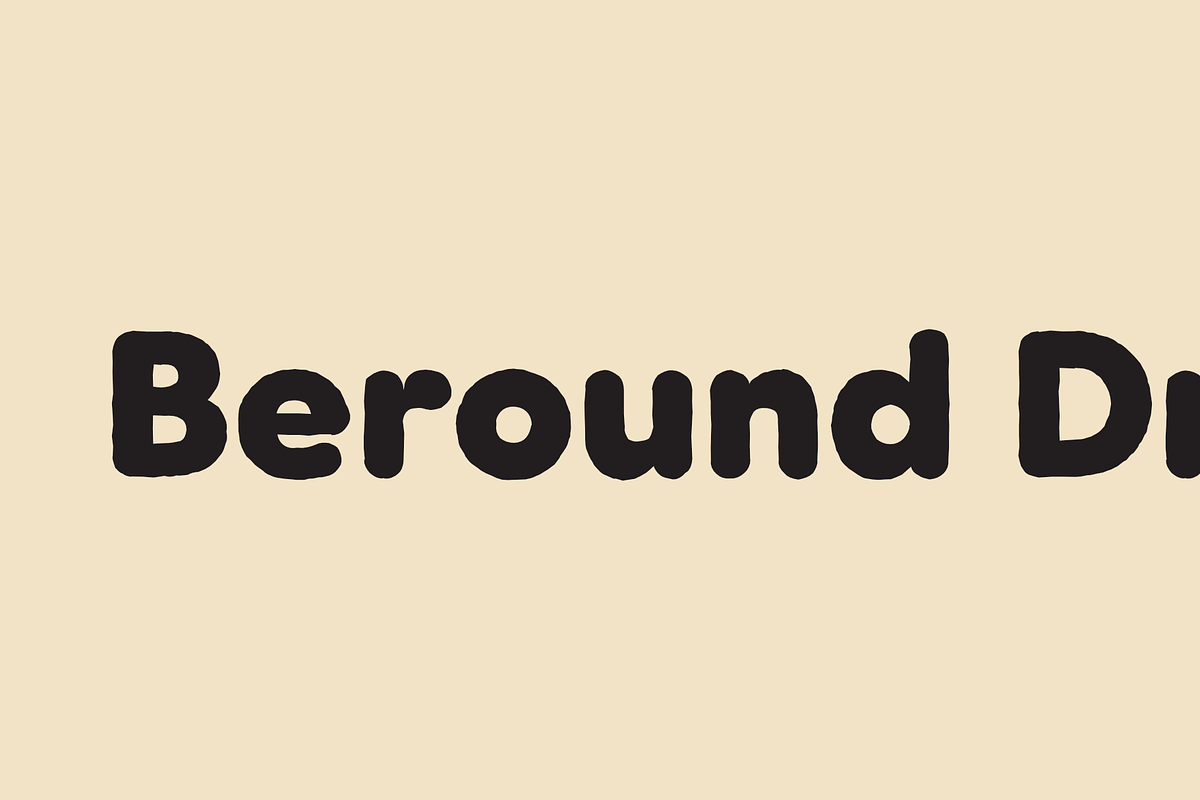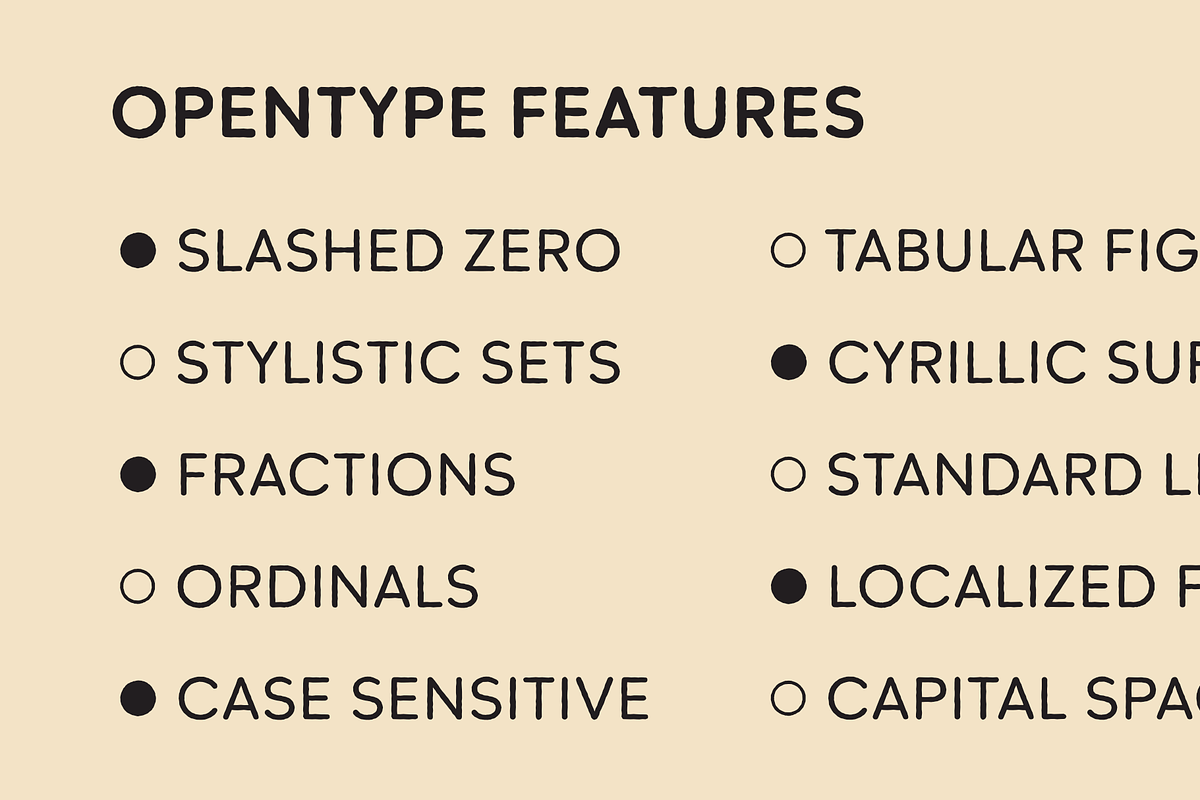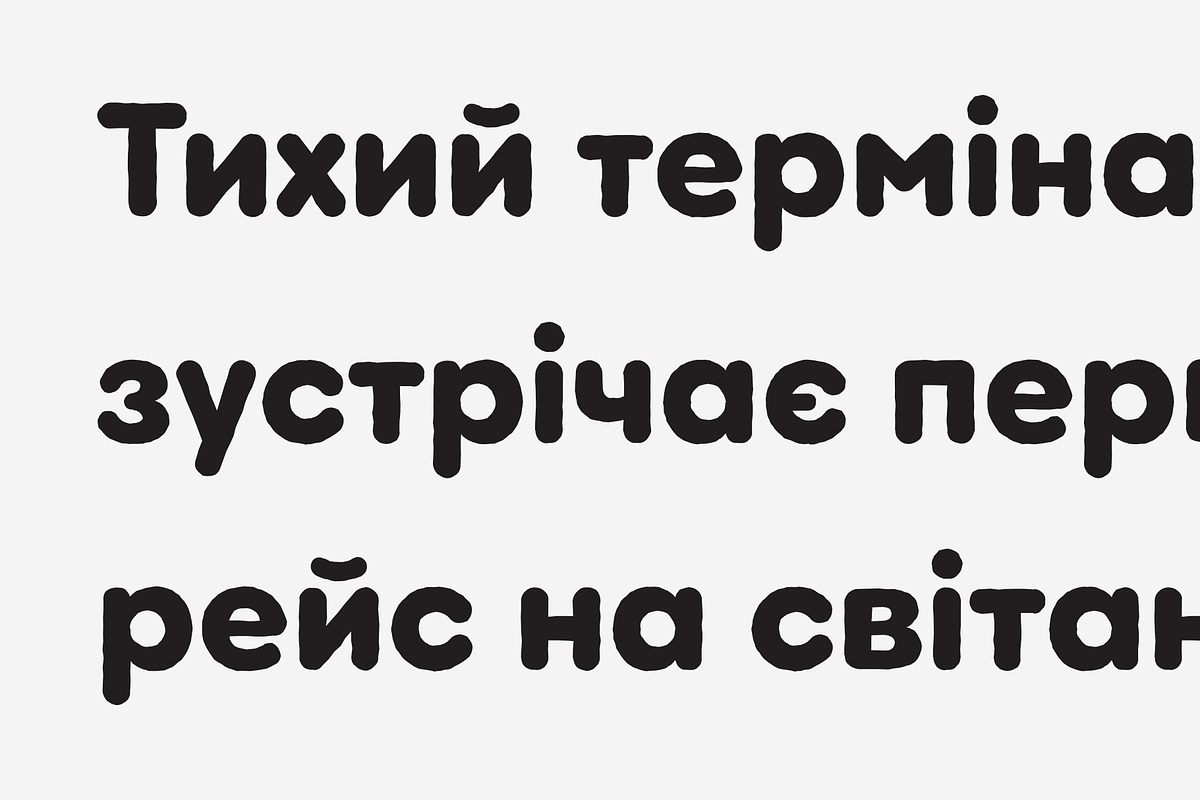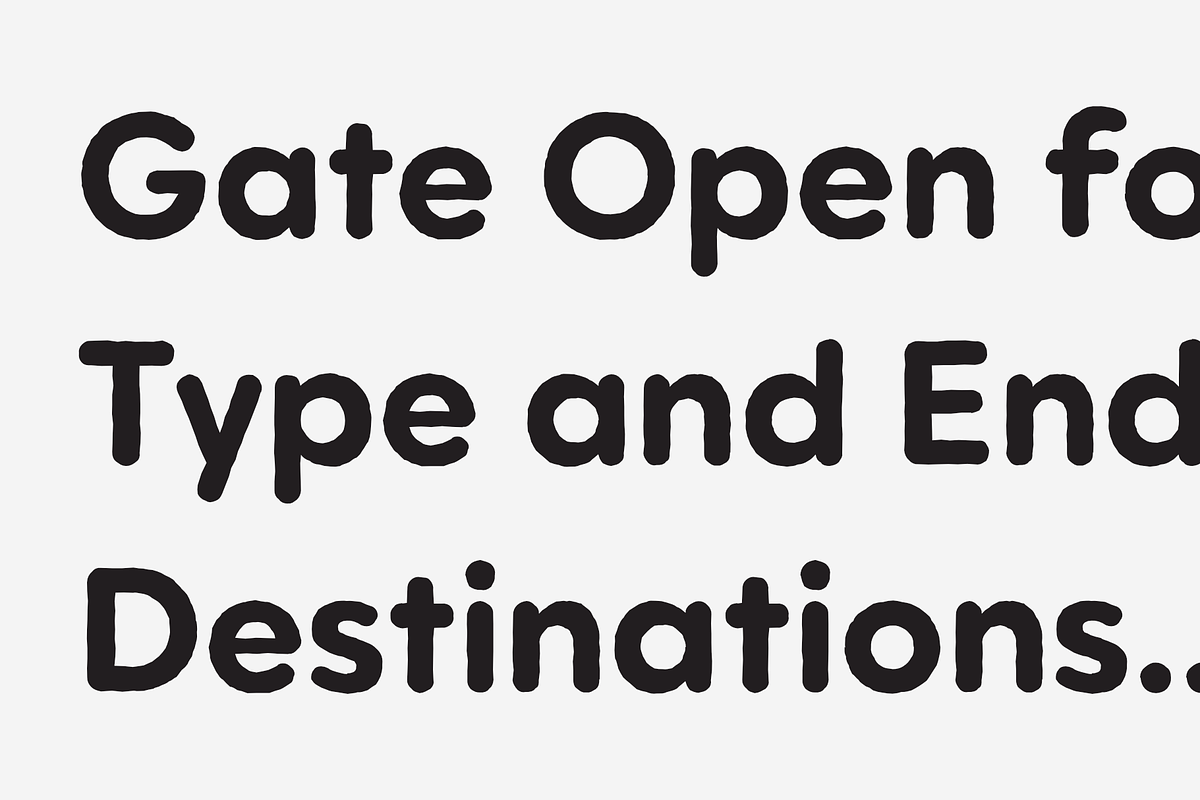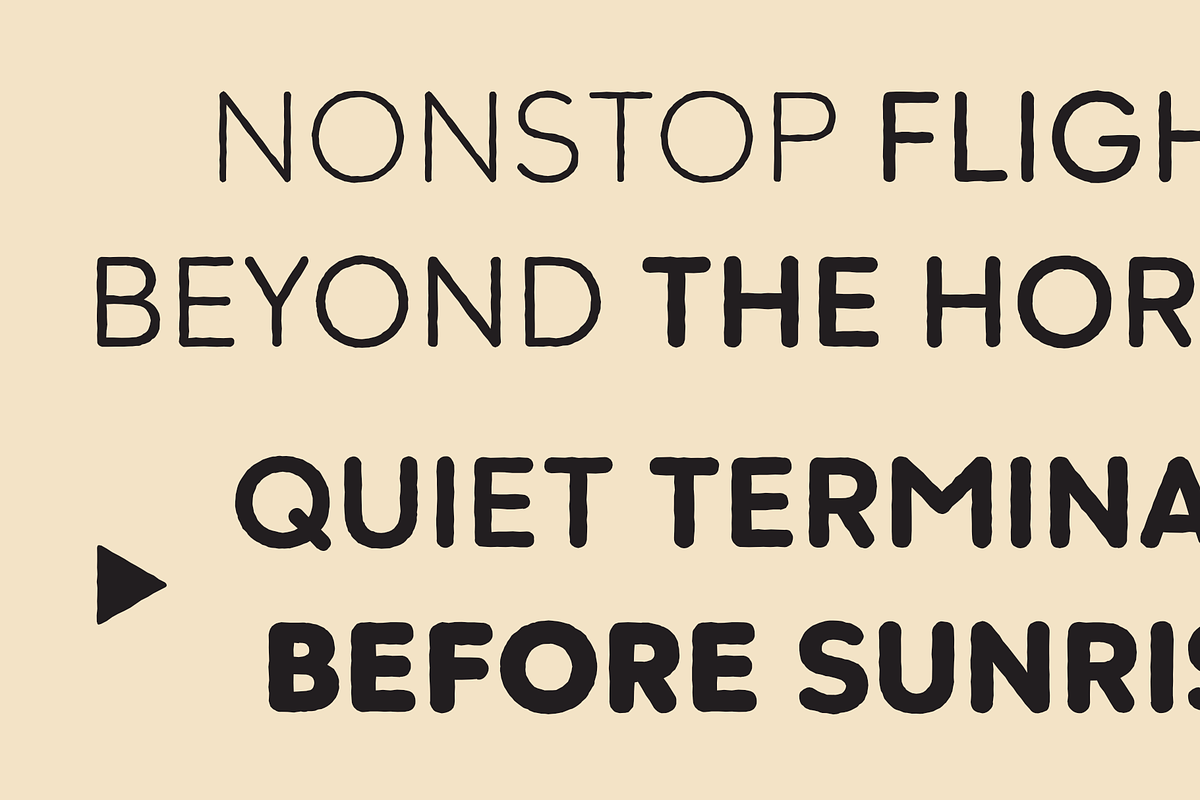
Beround Drift
Beround Drift is a modern rounded sans serif with a subtle sense of motion and character. Based on the original Beround, it combines clean geometry with soft tension and a slightly drifting rhythm. The family includes 48 styles and three packages — Lite, Prime, and Max — moving from smoother, softer shapes to more irregular and expressive forms. Perfect for branding, posters, packaging, and digital projects that need a fresh contemporary voice.